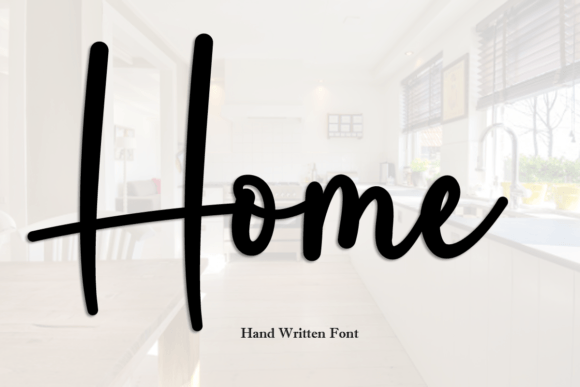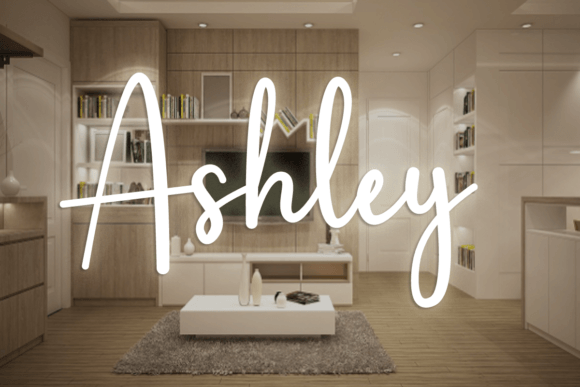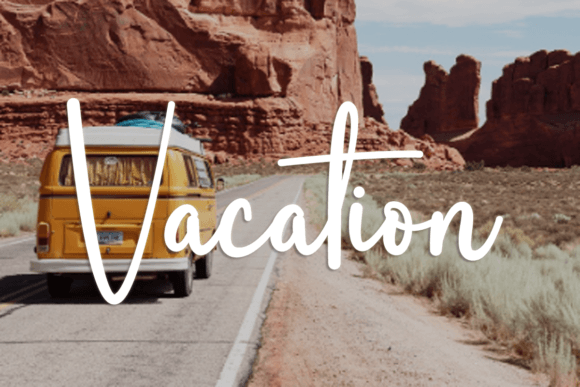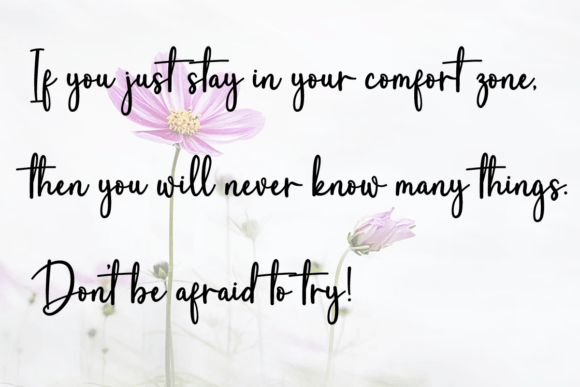
Home Font
About the Home Font
Crafted with precision, the Home Font is ready to bring your ideas to life. Home is a sweet and cursive handwritten font. This gentle font will look gorgeous on a variety of design ideas. It will add a joyful and romantic touch to each of your projects! Perfectly fit for branding, logo, wedding things, greeting cards, fashion, lookbook, marketing promotion, and any time you want your design to look fancy and elegant but still casual.
Home Font’s casual elegance makes it ideal for branding projects needing a touch of personality, particularly logos, short taglines, and social media graphics. It also excels in wedding stationery and other applications requiring a romantic feel, such as invitations and thank-you notes. However, its cursive nature makes it less suitable for body text or UI elements where readability is paramount. Avoid using it for lengthy paragraphs or website copy.
Pairing Home Font effectively requires considering its delicate script form. A clean sans-serif like Lato or Open Sans would provide a strong contrast and enhance readability when used alongside Home Font in a logo or marketing material. For a more vintage feel, consider pairing it with a classic serif font such as Garamond or Playfair Display.
Its overall personality is best described as friendly, romantic, and subtly playful; it conveys warmth and approachability without being overly childish. This makes it particularly well-suited to brands focusing on handcrafted goods, artisanal products, or businesses emphasizing personal connection with their customers.